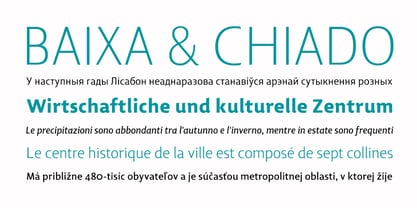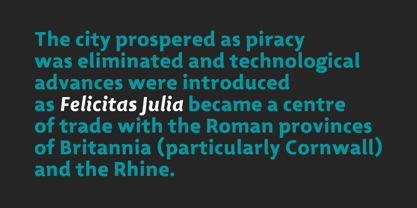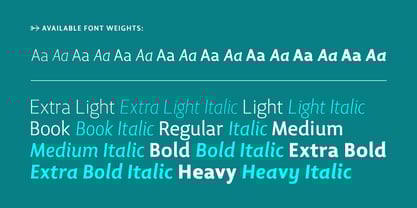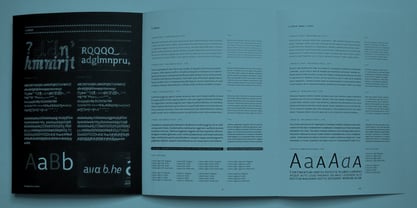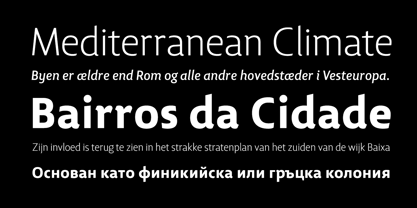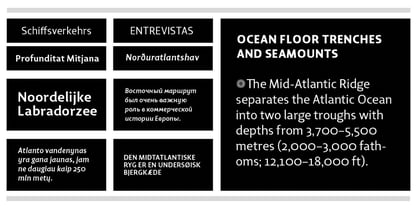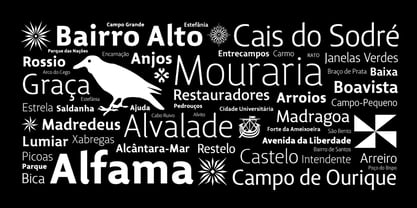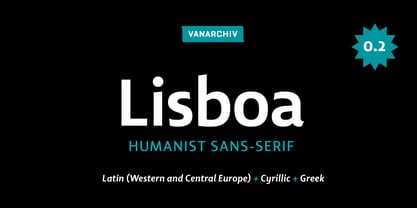
Lisboa Font
This Lisboa Font is perfect for Portuguese heritage branding, traditional azulejo tile designs, coastal restaurant materials, European tourism promotions, authentic fado music venues, historic cultural centers, traditional Portuguese bakeries, maritime shipping companies, wine estate communications, and charming Mediterranean business applications.
What makes this Lisboa Font exciting is its Portuguese authenticity that captures the historic charm and cultural richness of Lisbon's timeless architectural beauty. The font features elegant letterforms with traditional proportions that convey maritime heritage, cultural depth, and European sophistication. Its historic character and Portuguese authenticity make it ideal for brands seeking to communicate cultural heritage, European elegance, and traditional Portuguese excellence in tourism and cultural markets.
The Lisboa Font family includes light, regular, medium, and bold weights with Portuguese alternates, cultural variants, and maritime-inspired flourishes. This comprehensive heritage font family provides designers with authentic typographic tools to create traditional compositions while maintaining the Portuguese character essential for cultural tourism and European heritage brand communications.
The cultural construction of Lisboa Font showcases carefully crafted letterforms with Portuguese proportions that ensure exceptional authenticity across all heritage applications. Its traditional appearance and maritime character create memorable impressions while maintaining the readability necessary for effective cultural communication and Portuguese heritage materials.
Professional designers appreciate how Lisboa Font brings immediate Portuguese authenticity and European elegance to brand communications. The font's heritage nature allows organizations to communicate cultural excellence and traditional Portuguese values while maintaining the professional quality necessary for effective positioning in European tourism and cultural heritage markets.
The timeless appeal of Lisboa Font makes it particularly effective for brands emphasizing Portuguese culture, maritime heritage, and European coastal charm. Its authentic character resonates strongly with audiences who appreciate Portuguese traditions, coastal culture, and brands that represent the enduring beauty of Portuguese heritage and European cultural excellence.